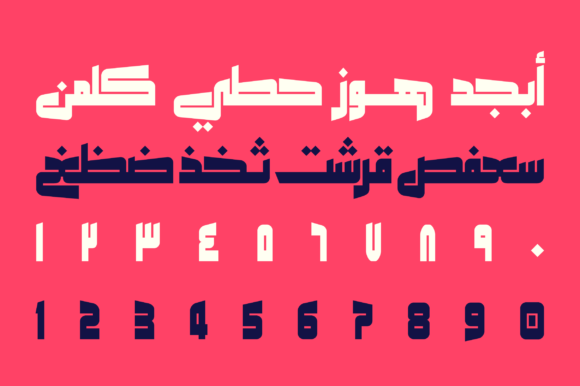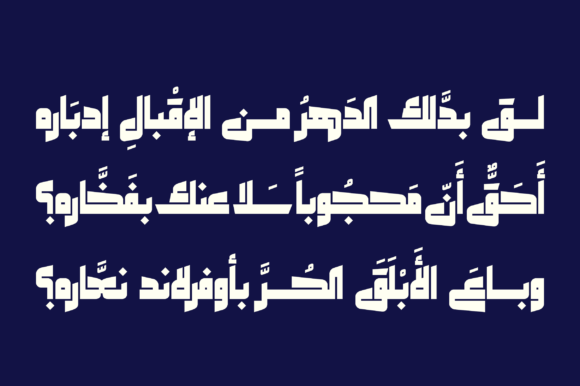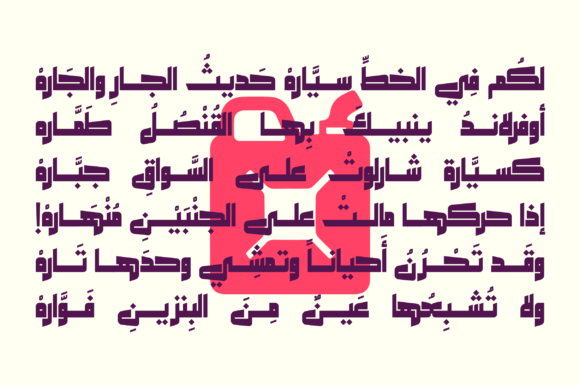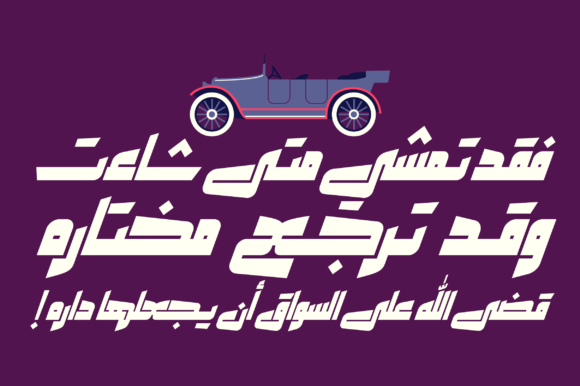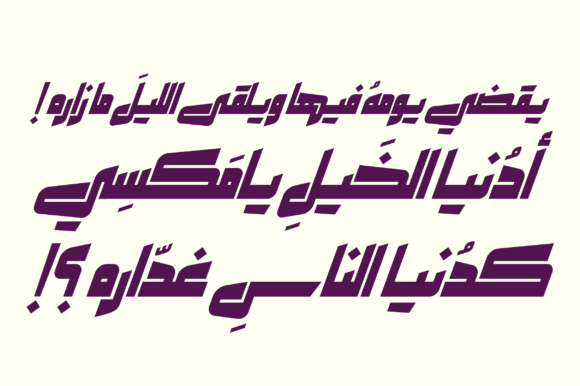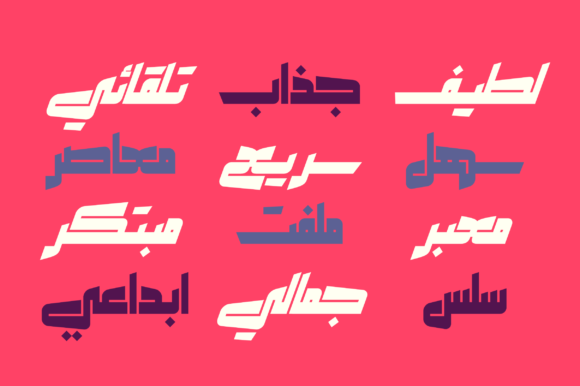
Introduction to Makeen – Arabic Font Font
Fonts play a crucial role in design, and the Makeen – Arabic Font font is a typeface that brings both character and versatility to any project. Whether you’re working on a branding project, a website, or a print design, the Makeen – Arabic Font font offers a unique style that can elevate your work.
Makeen مكين is the Arabic word that means deep-rooted, firmly established, honored and powerful.
Makeen is an Arabic display font that suits various range of applications including, web, advertising, publication and print The font family consists of three styles namely; Regular, Slant and Joined-Dots.
Key Features of Makeen – Arabic Font Font
Why Choose Makeen – Arabic Font Font?
The Makeen – Arabic Font font is more than just a typeface – it’s a design tool that helps you communicate your message with style and clarity. Its unique character set and versatile design make it suitable for a wide range of applications, from elegant invitations to bold headlines.
With its carefully crafted letterforms and balanced proportions, the Makeen – Arabic Font font ensures readability and visual appeal across all mediums.
What makes Makeen – Arabic Font font special?
The Makeen – Arabic Font font stands out with its unique design, exceptional readability, and versatility across various design applications.